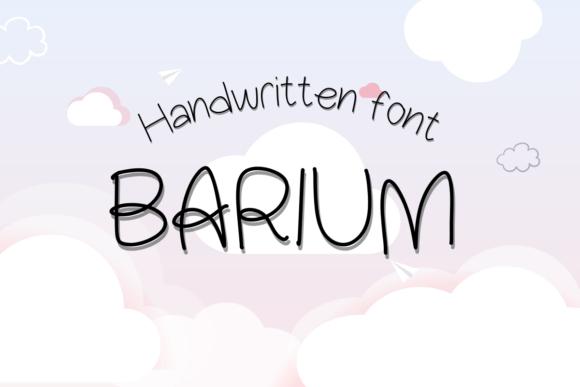
Embark on a journey into the realm of exquisite penmanship with Barium Font, where elegance and charm intertwine to create a masterpiece like no other. This captivating handwritten font, crafted with meticulous care by the talented Sirinart, breathes life into your creative expressions.
Picture this: the crispness of a white background adorned with the flowing strokes of Barium Font, beckoning you to pour your heart's desires onto paper. Let your emotions dance across the page, as the graceful curves and delicate flourishes of Barium Font transform your words into visual poetry.
Whether you seek to capture the fleeting thoughts in your diary, immortalize cherished moments in greeting cards, or add a touch of personal flair to your banners and social media posts, Barium Font stands as your steadfast companion. Its versatility knows no bounds, lending itself effortlessly to the creation of stunning mugs, cards, shirts, stationery, and more.
Dive into the depths of Barium Font's versatility and discover a treasure trove of possibilities. Let its elegant strokes elevate your designs to new heights, whether you're crafting captivating content or designing eye-catching logos. The possibilities are limitless, bound only by the confines of your imagination.
Indulge in the exquisite beauty of Barium Font and watch as your creative projects blossom into works of art. Each letter, meticulously crafted to perfection, carries a whisper of elegance that will captivate your audience and leave them in awe.